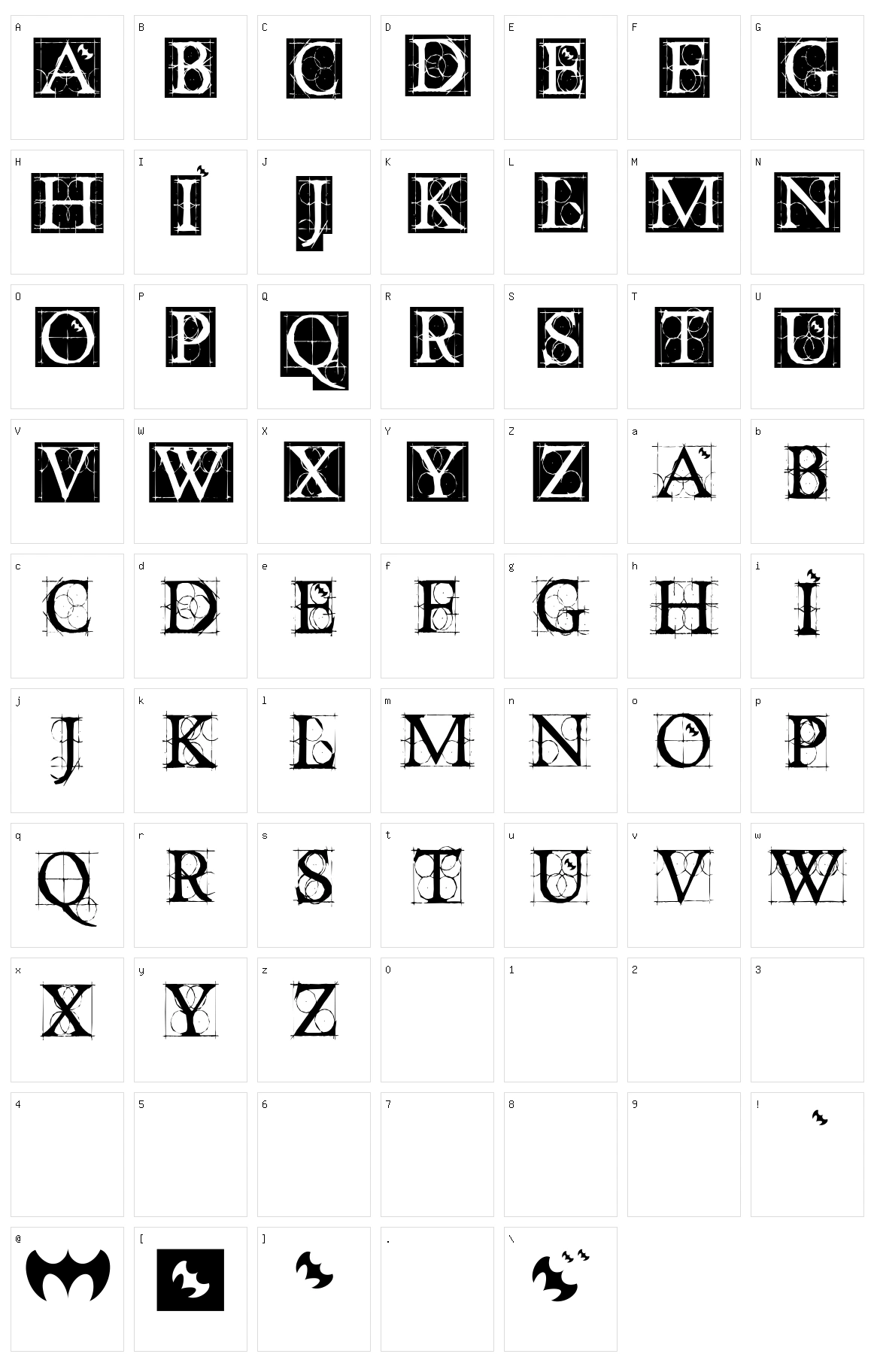
The free font Dancing Vampyrish is carefully designed by Manfred Klein, showcasing a thoughtful balance of creativity and usability and falls under the Grid font style. When you download the ZIP file, it contains only 55.98 KB of font files, making it lightweight and quick to download. Please review the license details below to understand permitted usage and distribution rights. If license information is not available, we recommend using this font for personal projects only or contacting the author directly for commercial usage permissions.